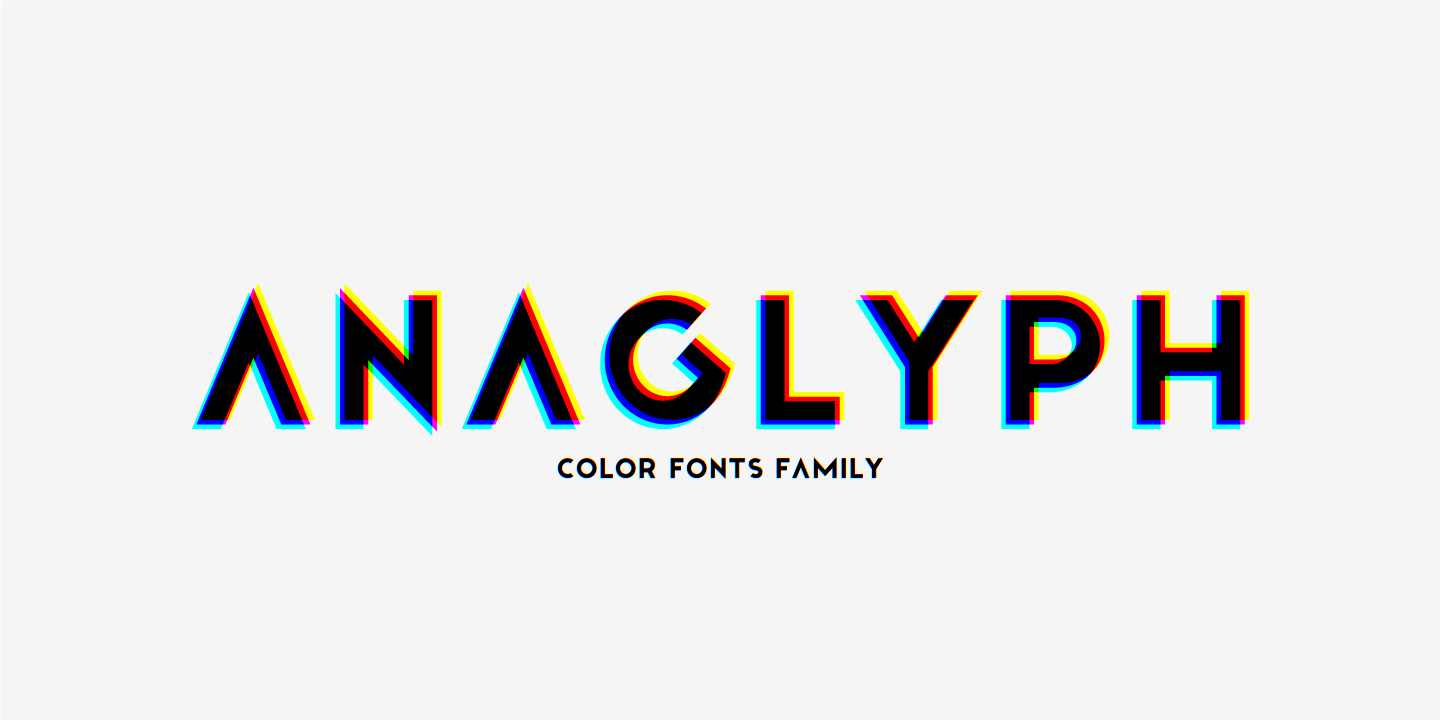
Anaglyph Font Free Download is a striking and dynamic typeface inspired by the classic 3D anaglyph effect, perfect for adding a bold and vintage vibe to your designs. Please note: you must purchase a license for commercial use — this font is available as a free download strictly for personal and testing purposes.
Ideal for posters, branding, social media graphics, packaging, and editorial projects, Anaglyph Font Free Download delivers an eye-catching, layered look that grabs attention instantly.
What makes this font exciting is its clever use of offset shadows and vibrant colors that mimic the old-school 3D effect, creating depth and visual interest in any design.
The Anaglyph font family includes Regular and Bold styles, offering flexibility to suit a variety of creative needs.
If you want to bring a nostalgic yet modern twist to your projects, Anaglyph Font Free Download is an excellent choice. Download it today, explore its unique style, and elevate your designs with vibrant personality and flair.